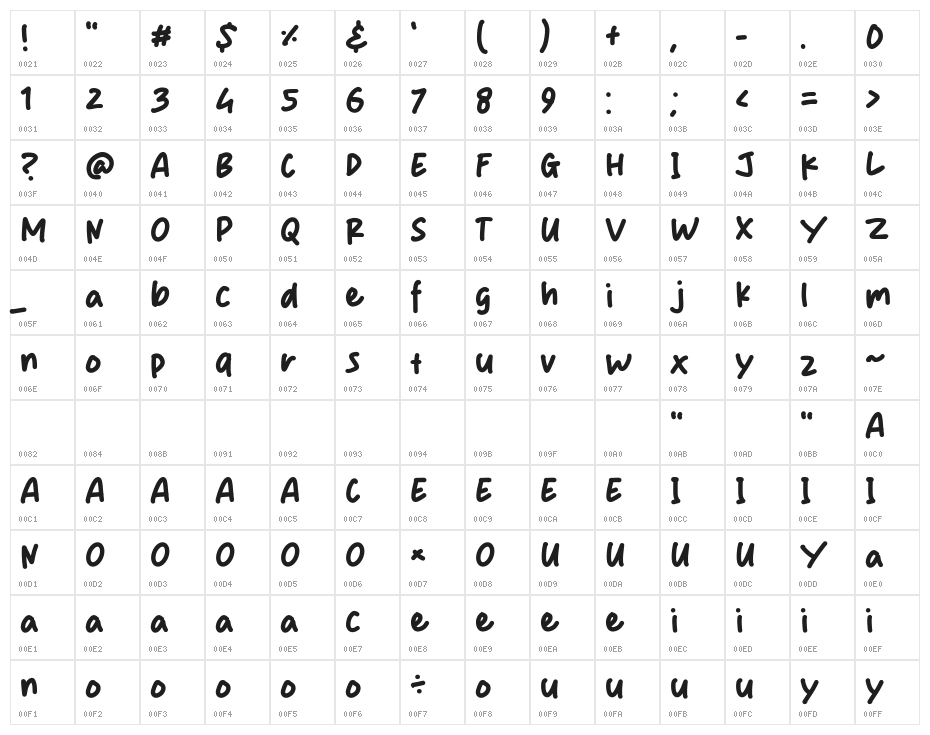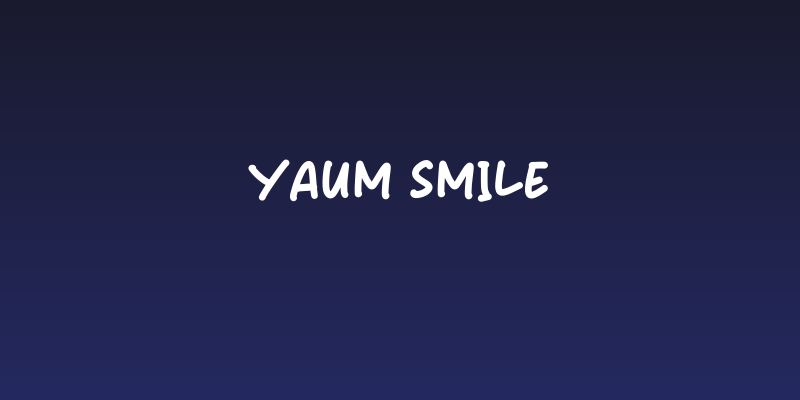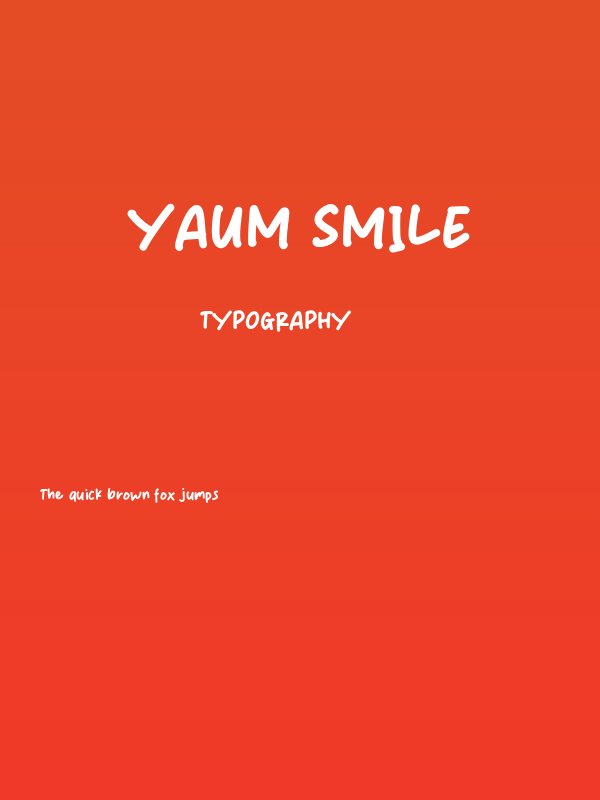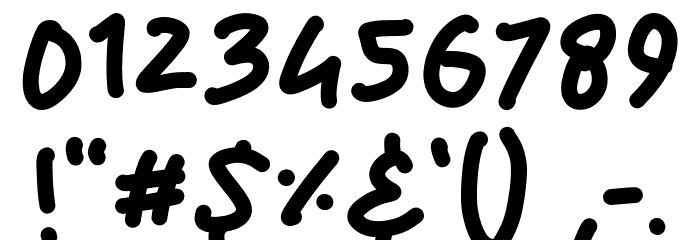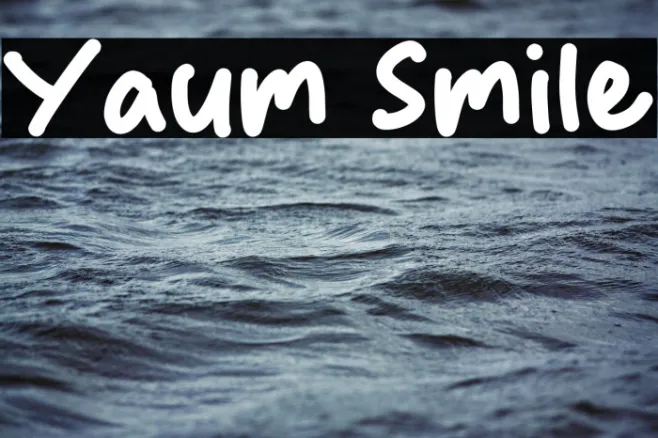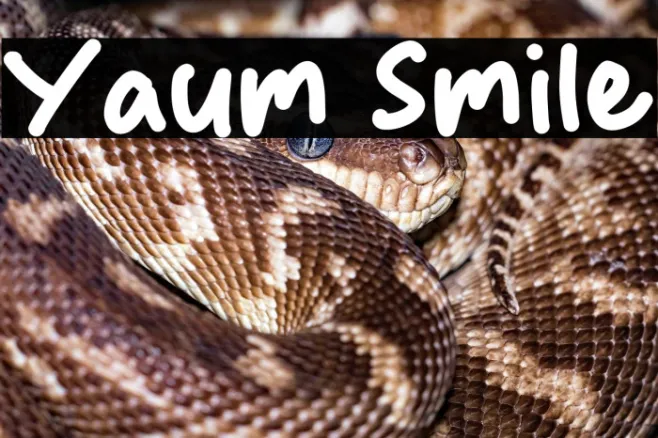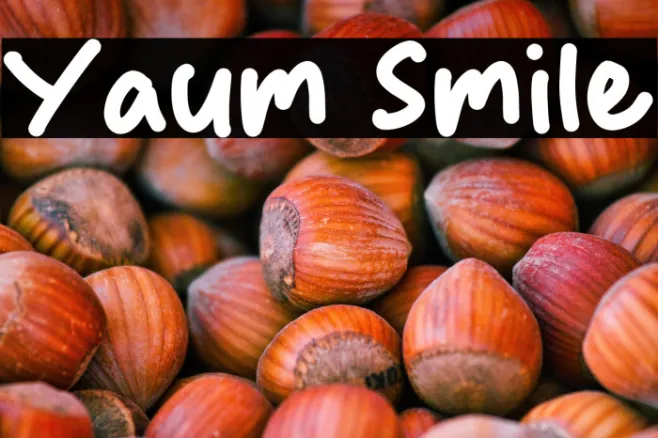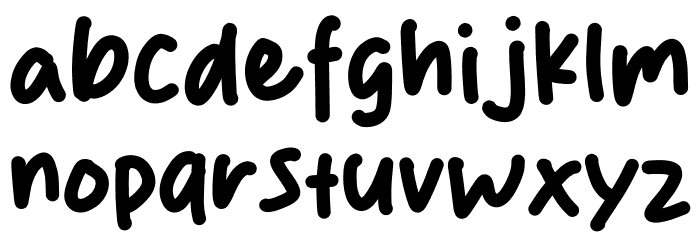
Yaum Smile Font
Yaum Smile Description
This playful and energetic font features bold, rounded characters that convey a sense of friendliness and approachability. The letters are slightly irregular, giving it a hand-drawn, casual appearance. The strokes are consistent in weight, providing a uniform look across all characters. The font includes both uppercase and lowercase letters, numerals, and a variety of special characters, making it versatile for different uses. Its informal style is perfect for projects that require a personal touch or a fun, lively vibe.
| Use Case | Logos, Headlines, Informal Text |
| Proposed Projects | Ideal for children's books, greeting cards, playful branding, and social media graphics. |